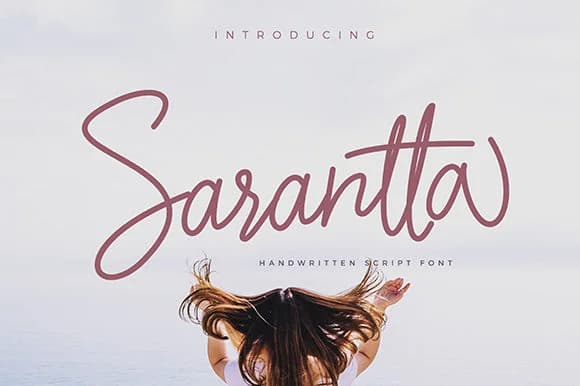
Sarantta captures the flowing elegance of real handwriting, rendered with dramatic flourishes and swash details that make each letter feel individually crafted rather than mechanically generated. Designed by RZKY CNRA STUDIO, this script font brings warmth and personality to your work without compromising readability, even at smaller sizes or when text needs to stand out against busy backgrounds.
These flowing letterforms give Sarantta its distinctive character and visual richness. It excels for wedding invitation suites, where that personal, handmade quality sets the tone immediately and creates lasting impressions that feel special. You'll also find strong applications in artisanal packaging design for boutique brands, greeting card projects that need a more refined feel, and monogram work where clients expect true elegance and care. Both screen and print work equally well with the fluid letterforms, keeping your options open across digital and production contexts. Natural rhythm throughout makes it particularly strong for long-form text in calligraphy-inspired compositions and handwritten-style branding, so it's versatile beyond quick headlines or accent use alone.
Sarantta Font is a script font that shines as a display or heading face. Pair it with a clean sans-serif or serif font for body text β the contrast creates a clear hierarchy while the two styles stay balanced and easy to read.